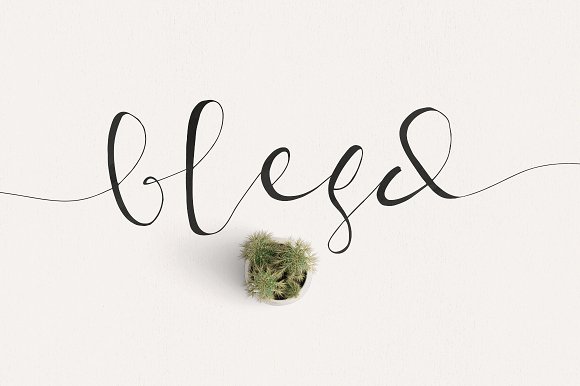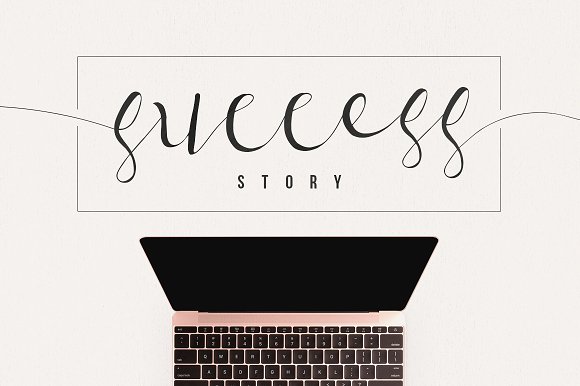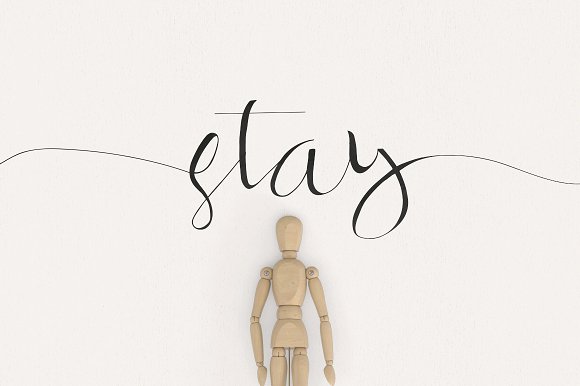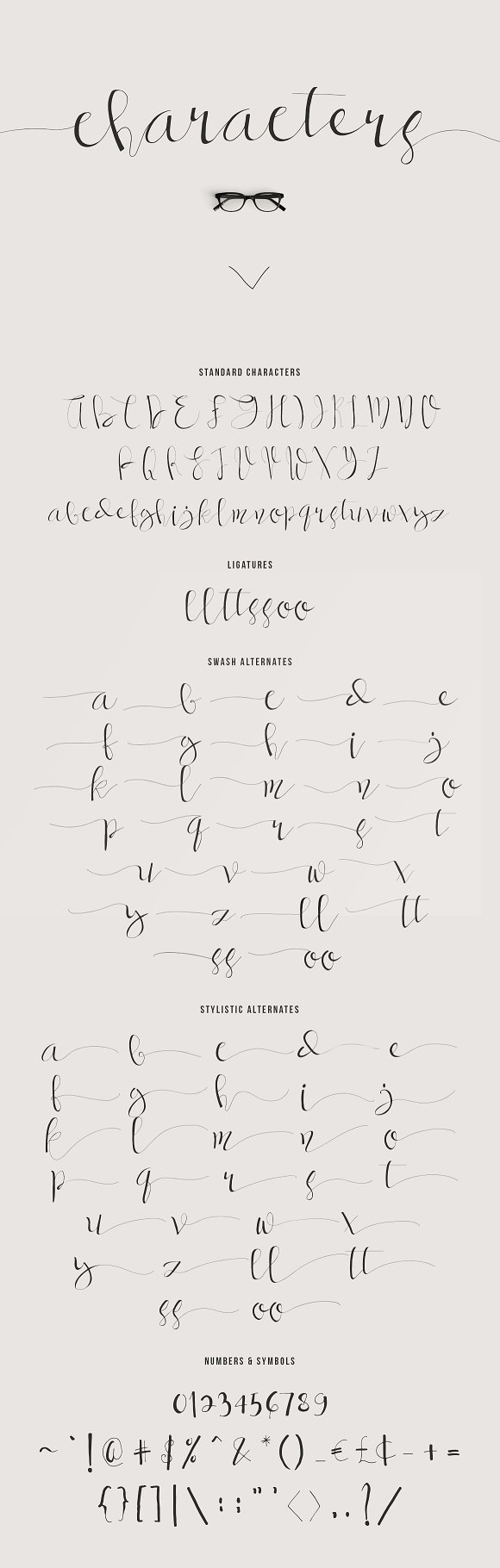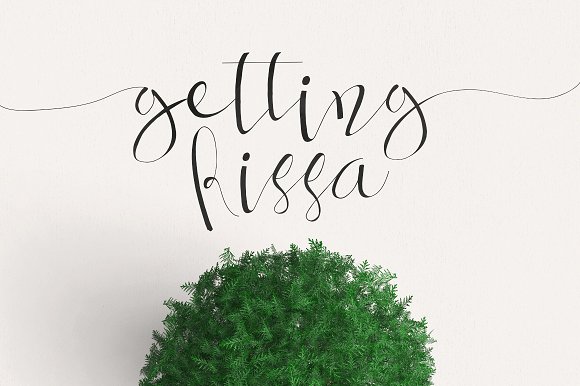
Blesd Display Font
Give your designs an authentic handcrafted feel. “Blesd” is perfectly suited to stationery, logo, typography quotes, magazine or book cover, website header, clothing, branding, packaging design and more. Included Stylistic Alternates and Swash Alternates.